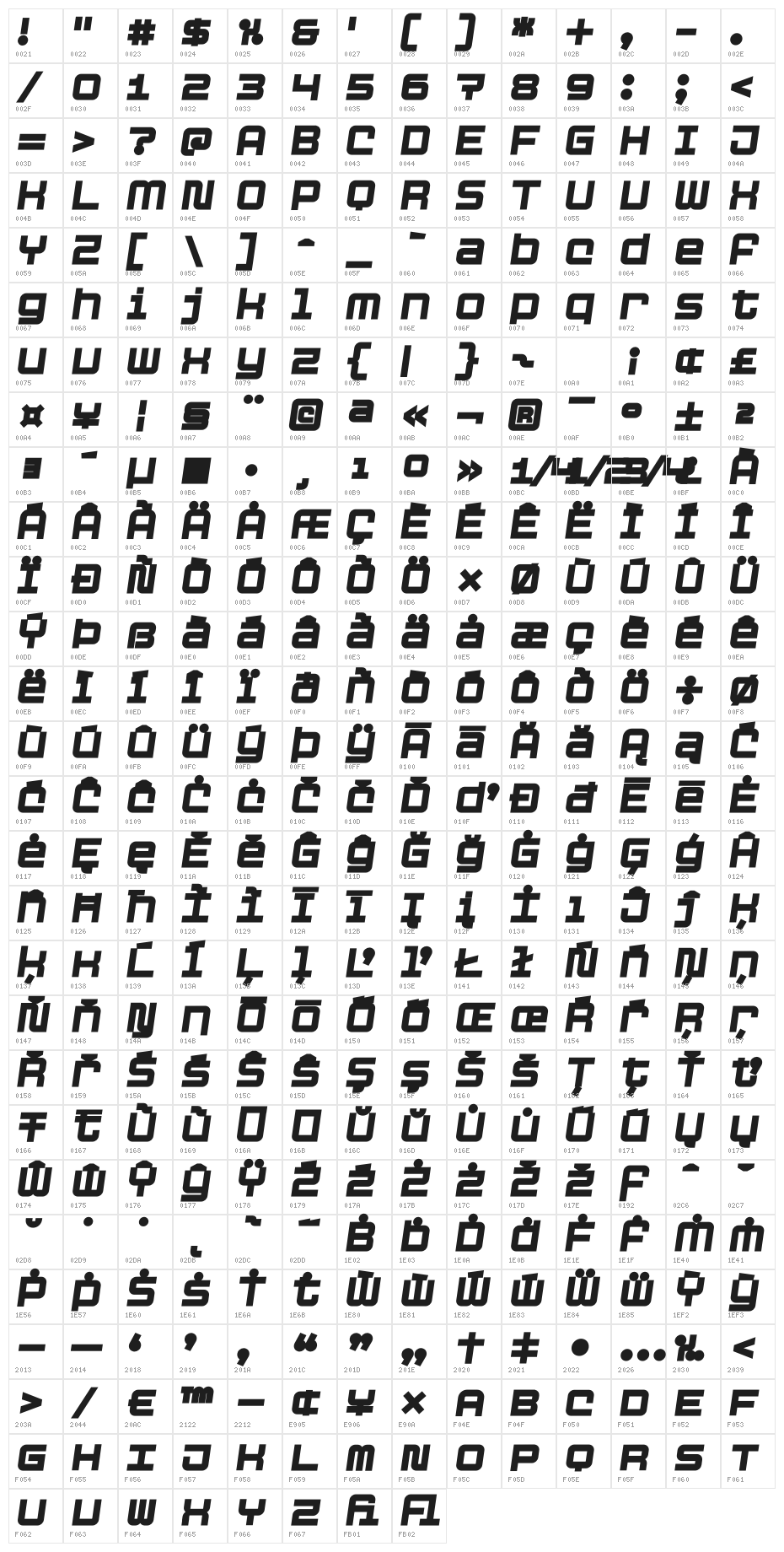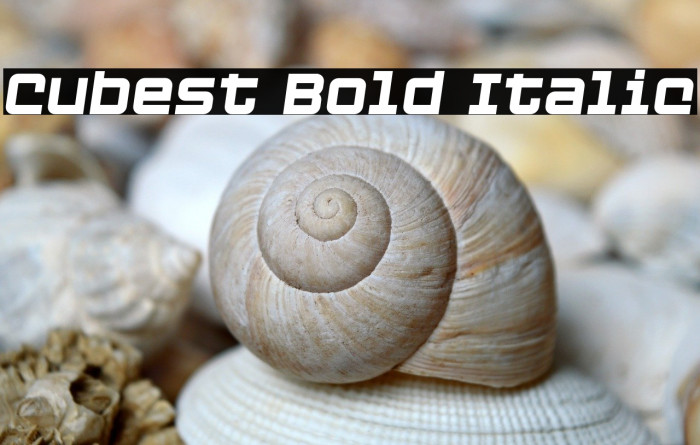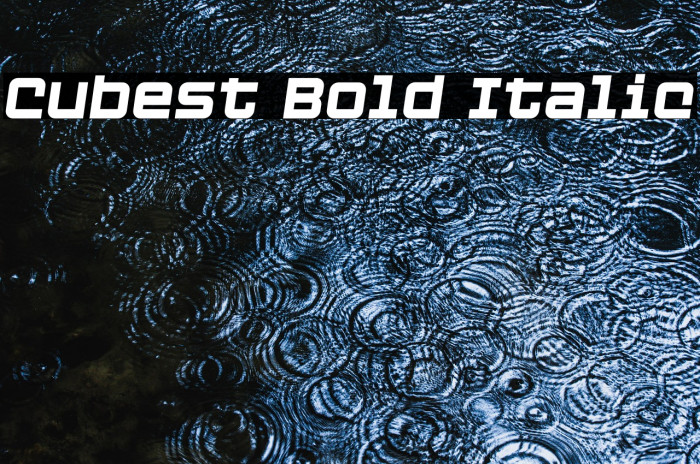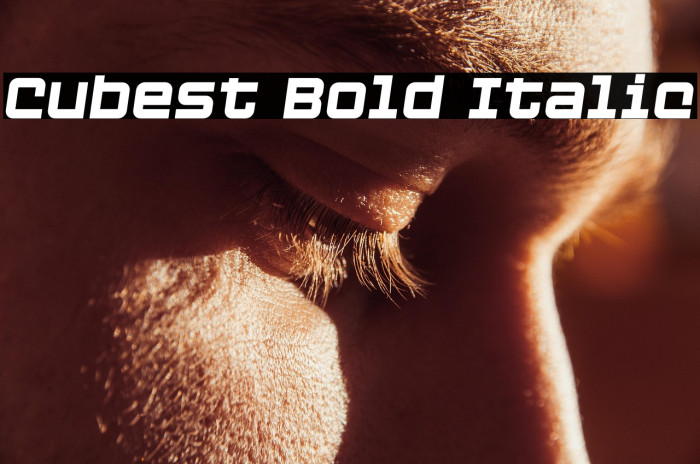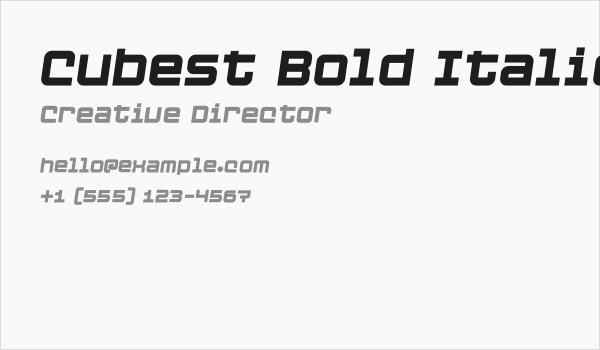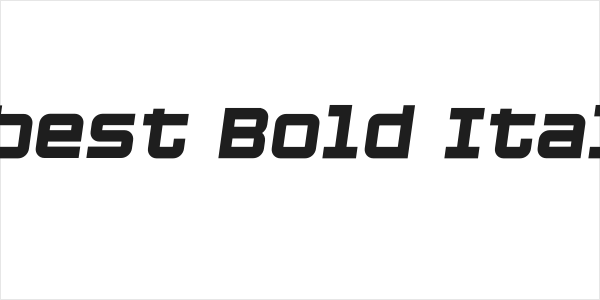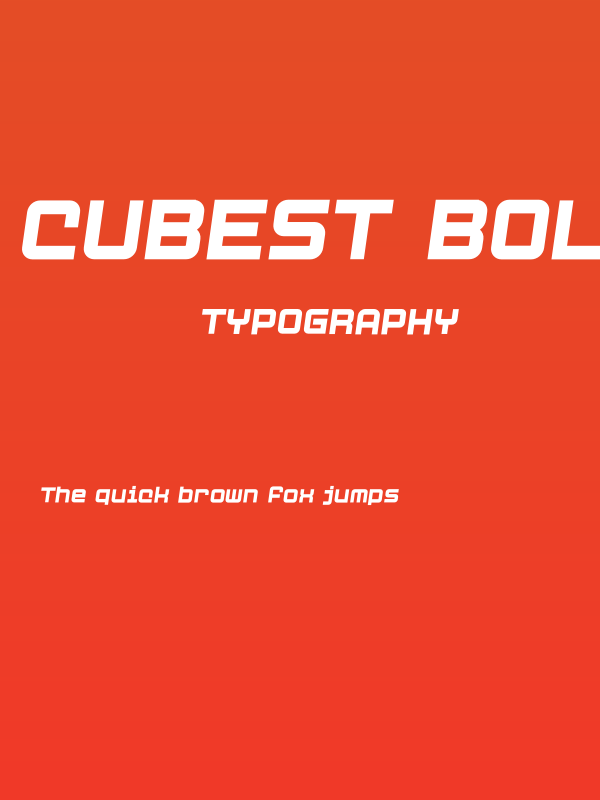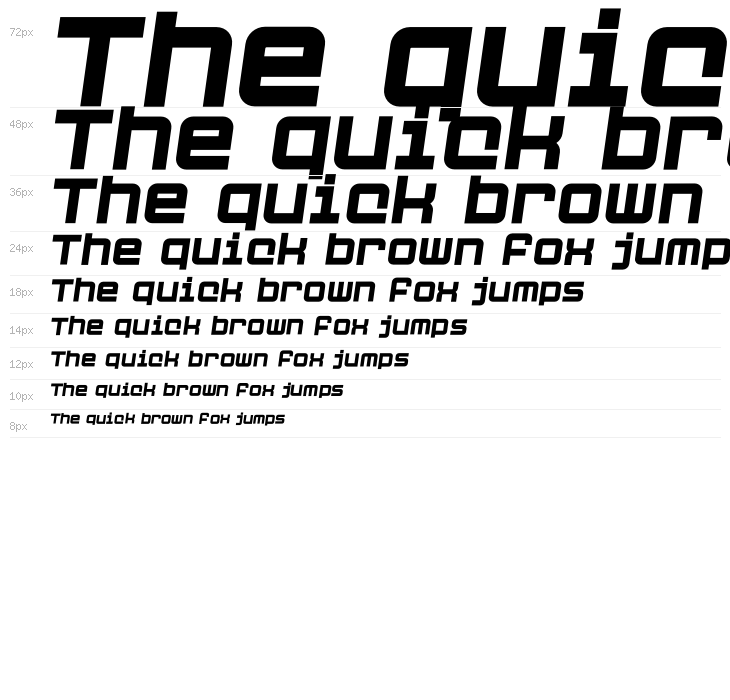
Cubest Bold Italic Font
Cubest Bold Italic Description
This font features a bold and italic style with a modern, geometric design. The characters are slightly slanted, giving a dynamic and forward-moving appearance. The strokes are consistent in weight, providing a uniform look across all characters. The uppercase and lowercase letters maintain a similar width, contributing to a cohesive visual flow. The numerals are clear and distinct, matching the overall style of the alphabet. Special characters are well-integrated, ensuring versatility in various applications. The font's design is suitable for projects that require a contemporary and energetic feel.